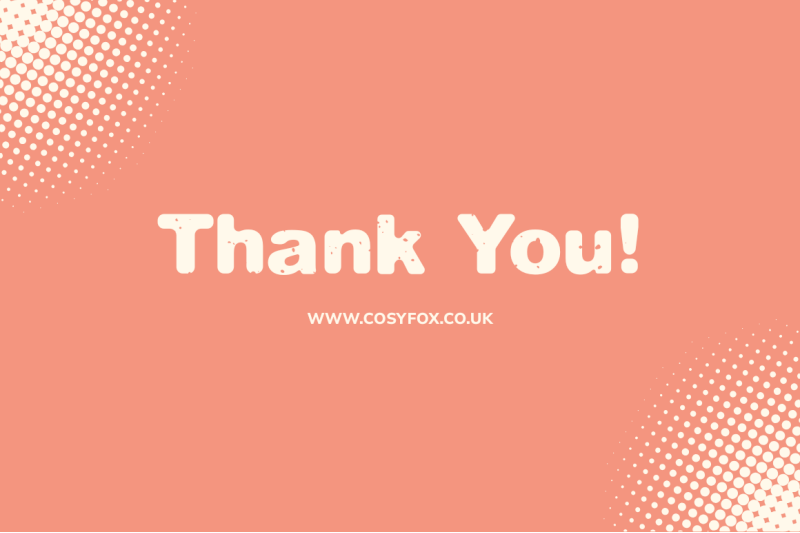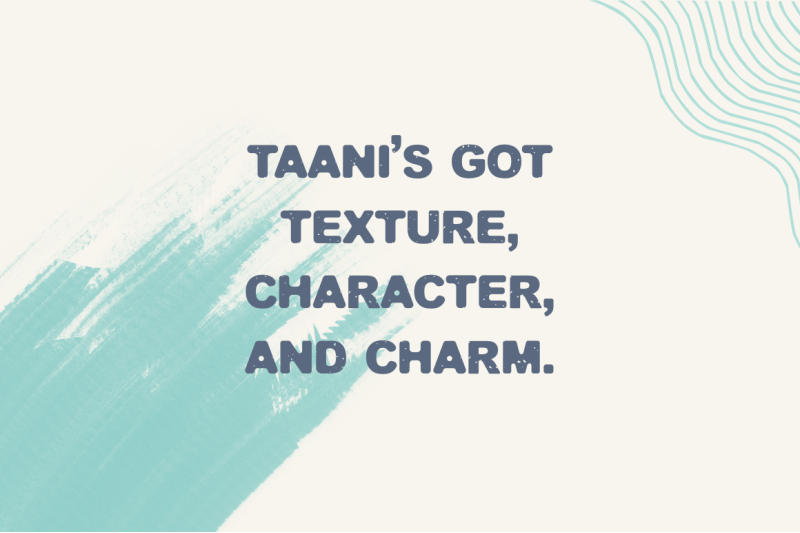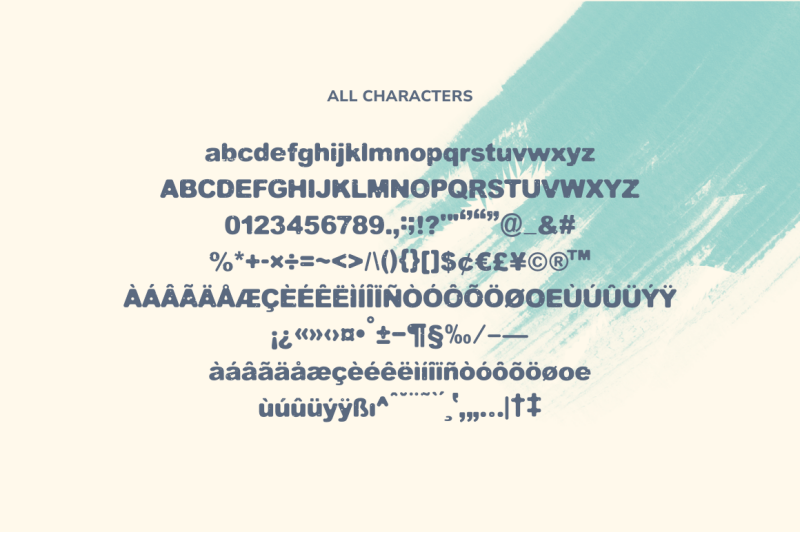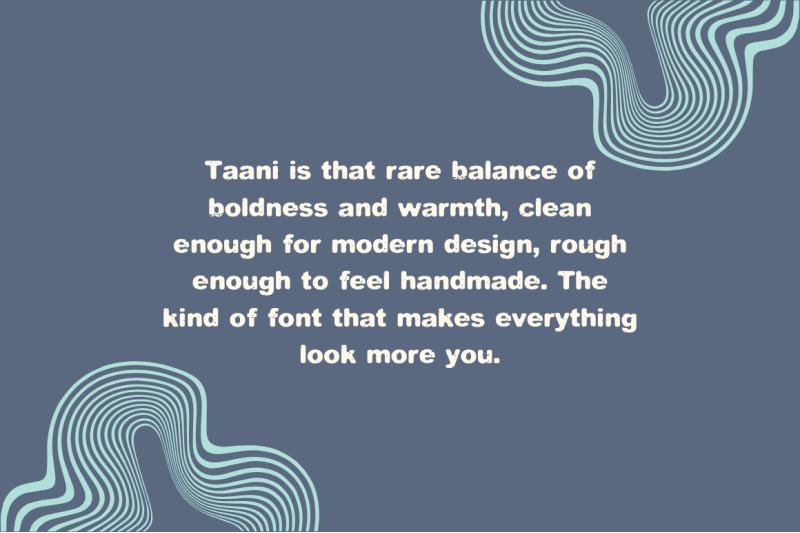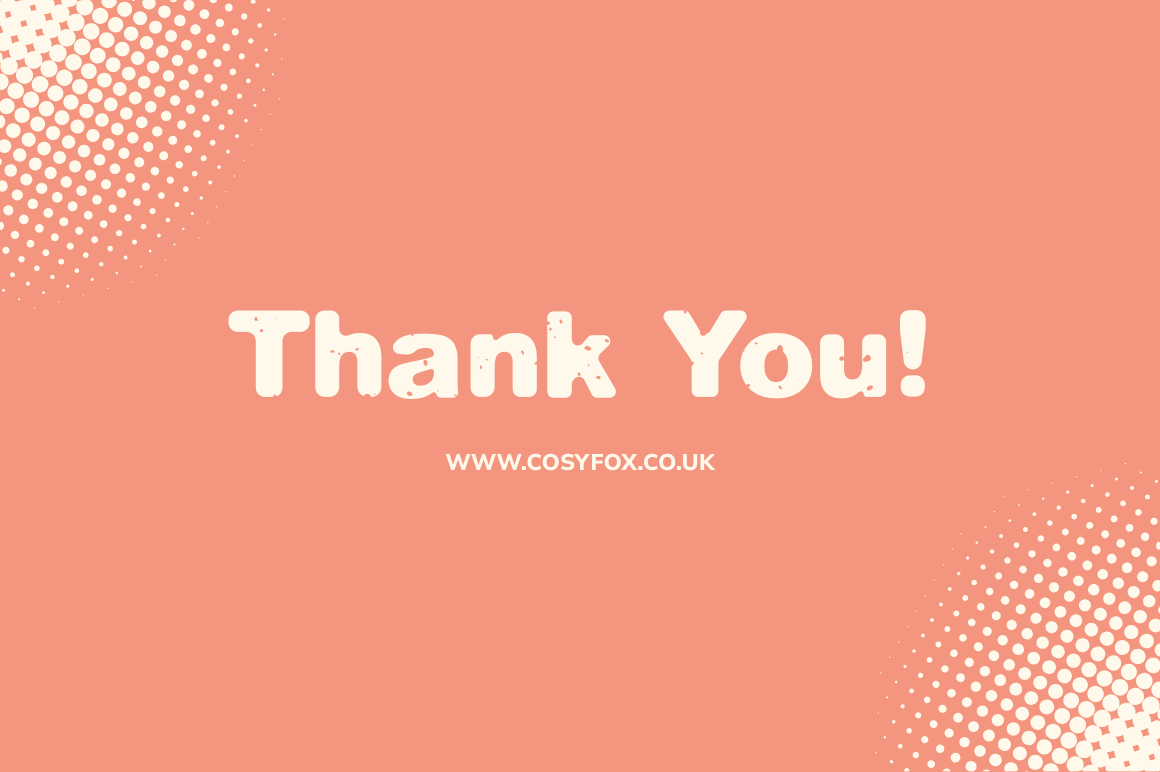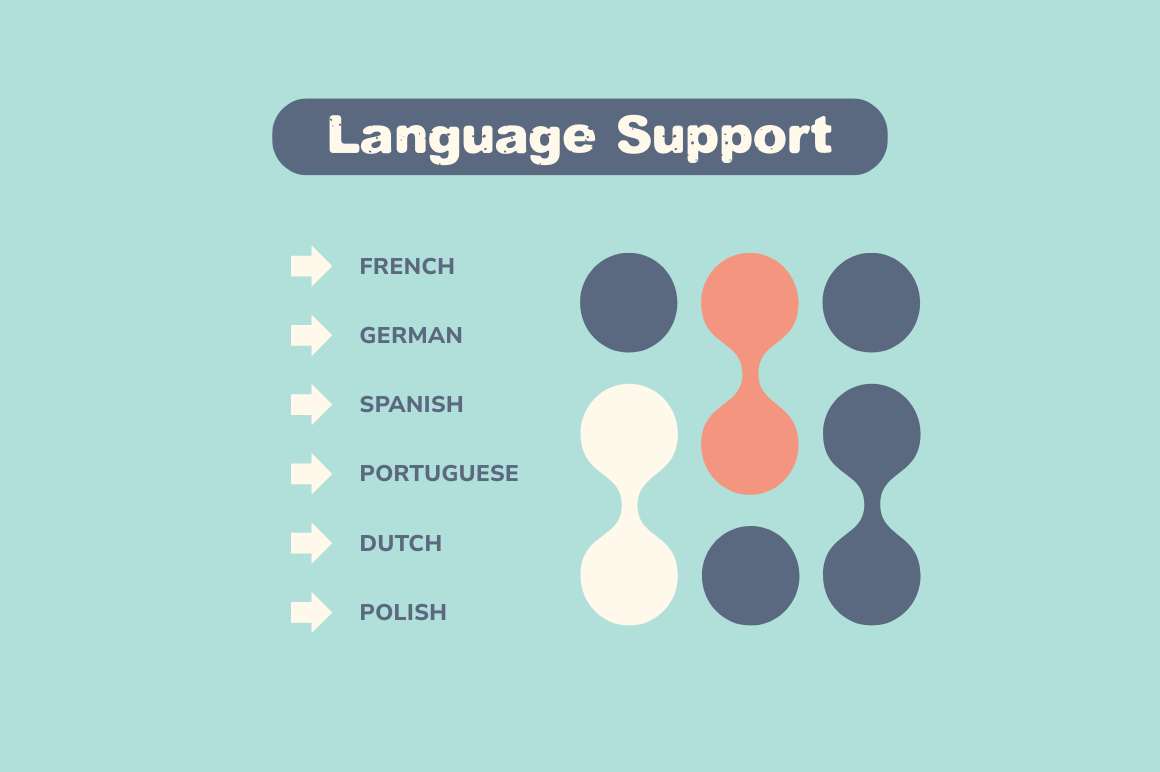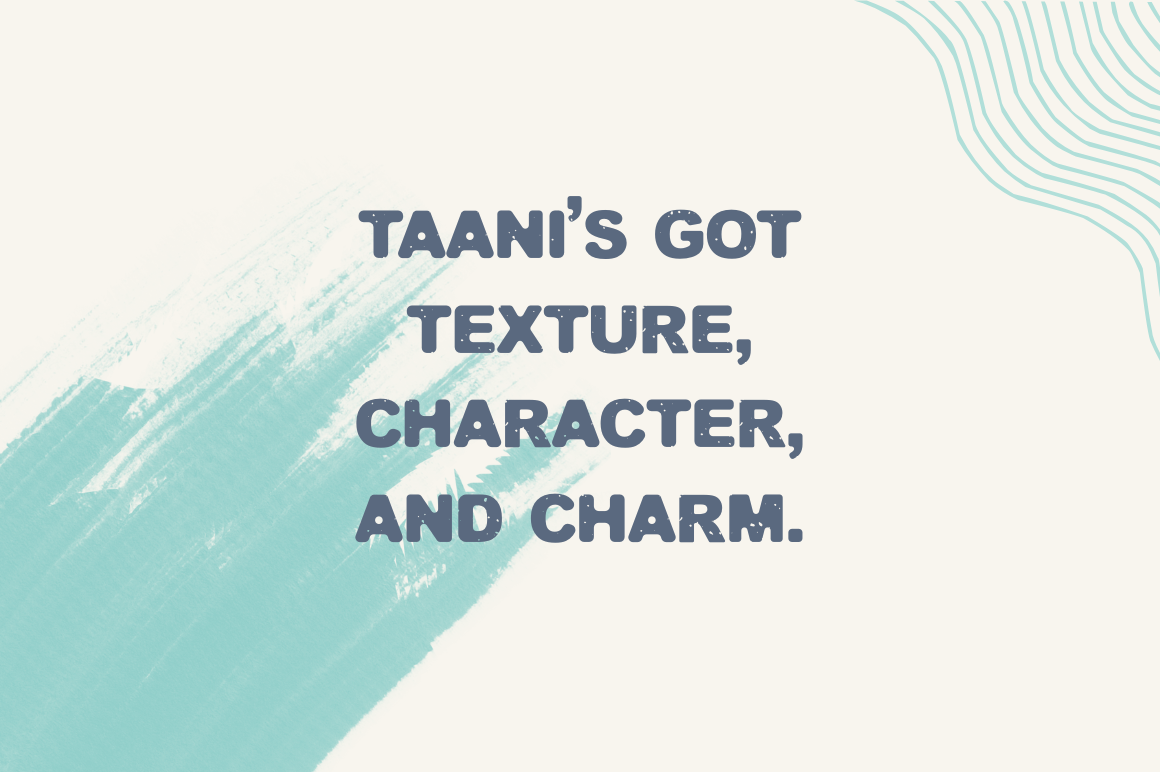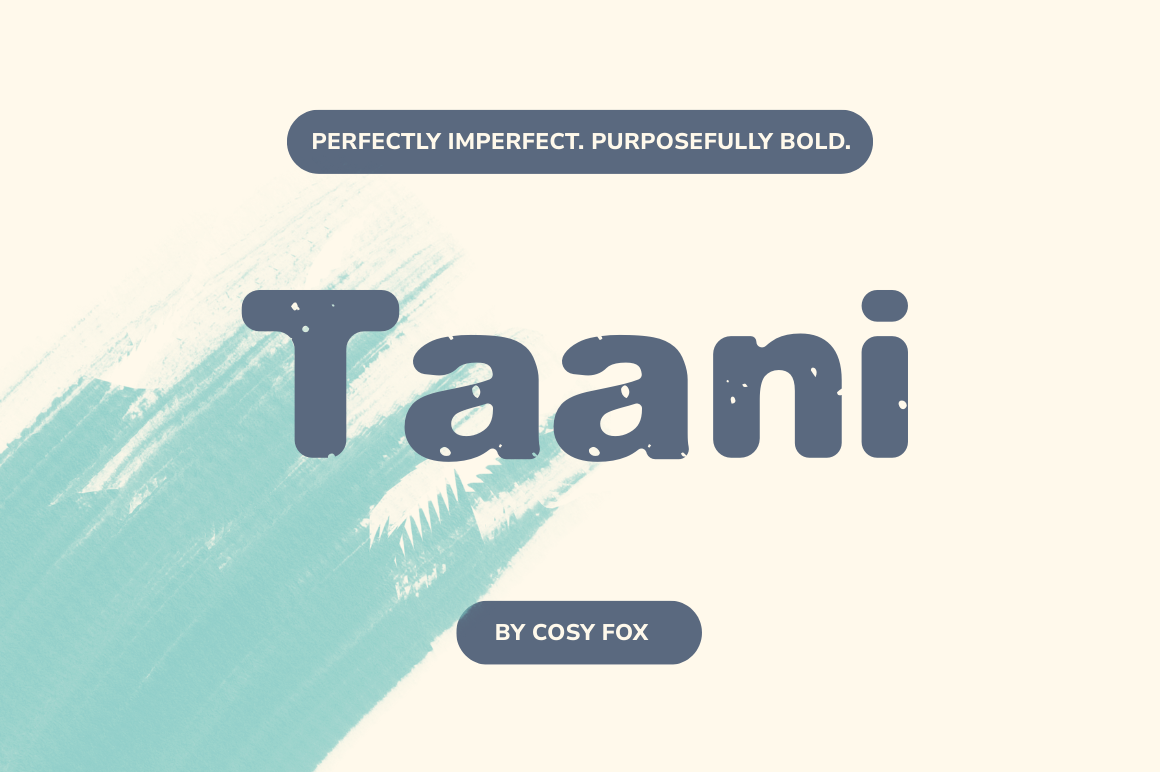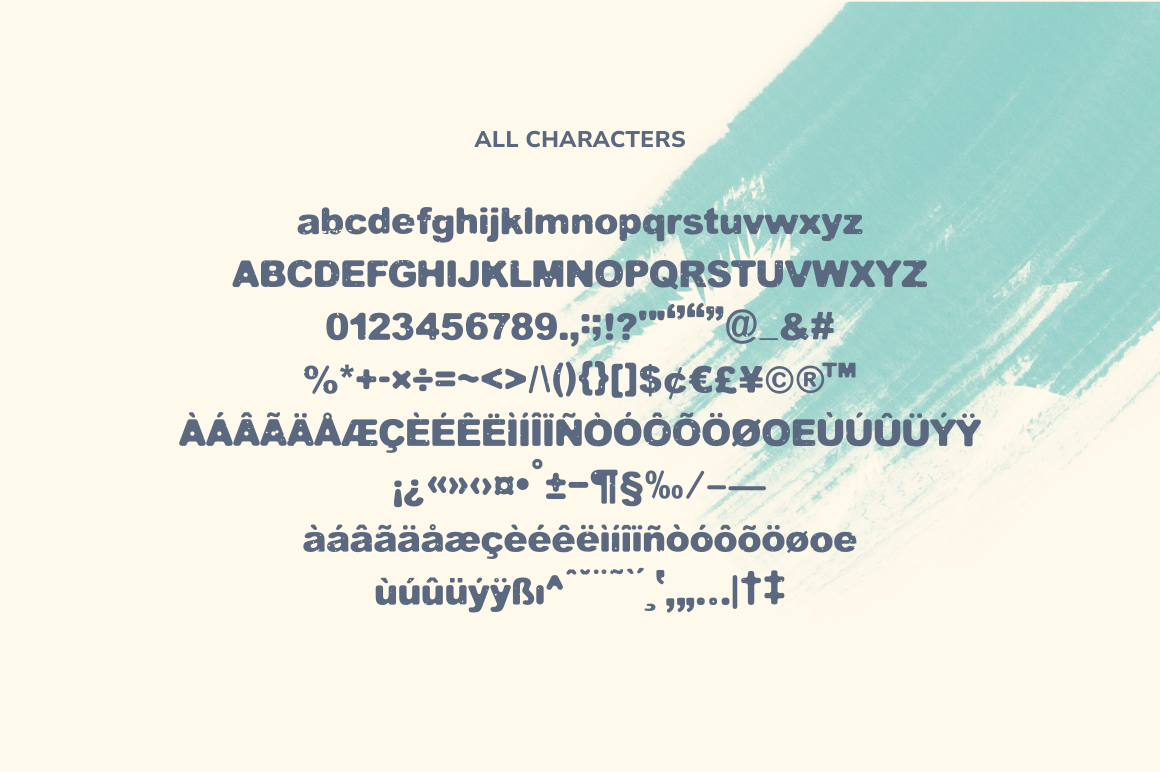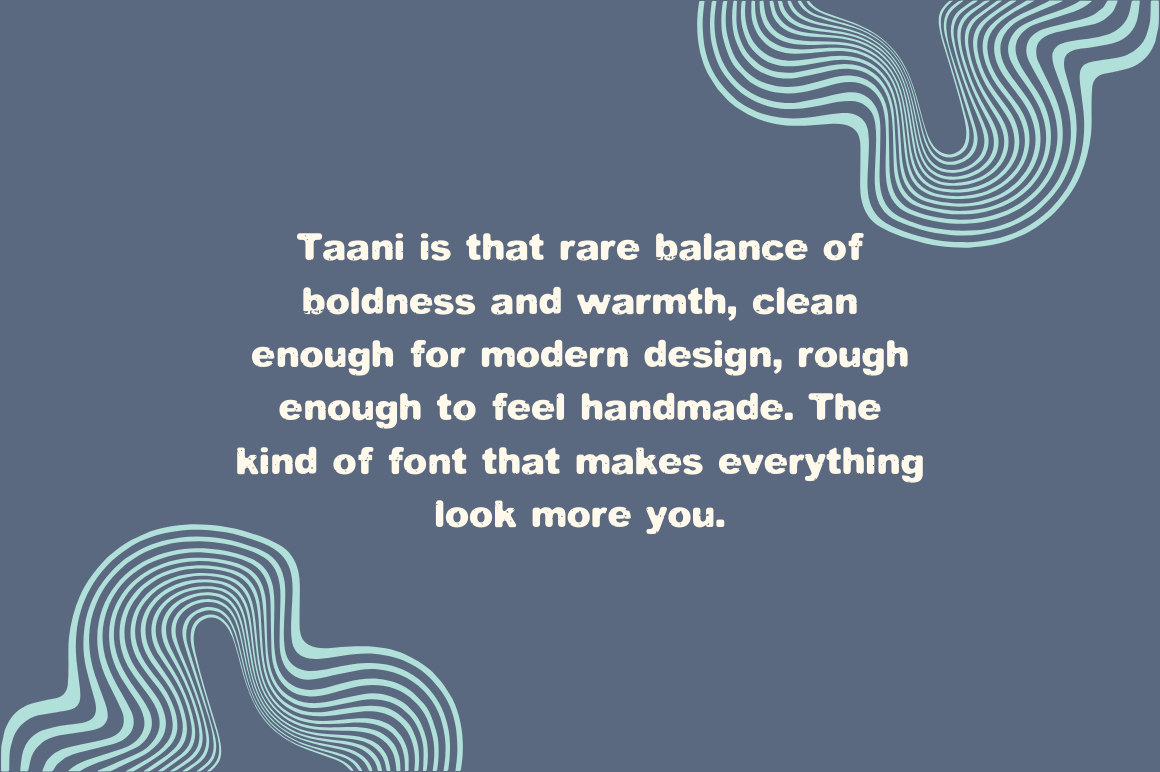
Taani Chunky Sans Serif Font
Taani is a bold, rounded display font with subtle texture and lots of character. Designed to look slightly imperfect—in the best way—it’s the kind of font that brings warmth and style to whatever you’re making. With both uppercase and lowercase letters, punctuation, multilingual support, and a lovely worn-in feel, it’s ideal for packaging, headlines, t-shirt graphics, and branding that wants to feel bold but human. Taani works beautifully in Canva, Procreate, and all your favourite design tools—easy to use, hard to forget. Language Support: French, German, Spanish, Italian and Portuguese. What You Get: Taani .OTF font file, How to Install PDF. Thank You! www.cosyfox.co.uk